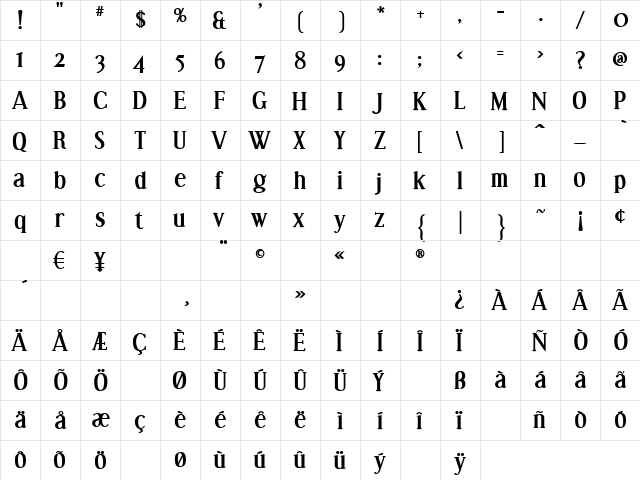
Effloresce Bold
Design Context for Effloresce Typeface
Effloresce is a composed and adaptable typeface that performs quietly and consistently across a wide range of design contexts. The heavy weight commands attention and anchors typographic hierarchies.